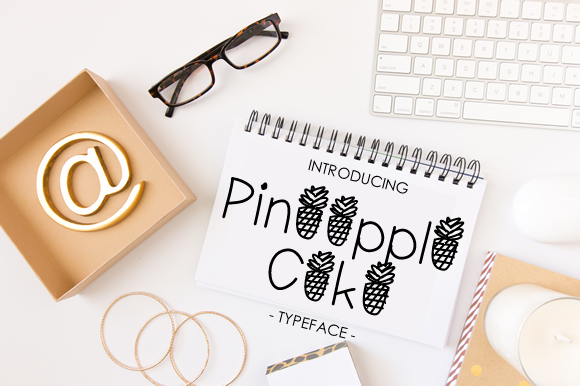
Pineapple Cake Font
Journey into a realm of unbridled creativity where your designs blossom with tropical flair, all thanks to Pineapple Cake Font, a whimsical and decorative font family that's bursting with playful charm. Crafted by the talented yh.seaofknowledge, this font collection is an ode to the sweet and juicy pineapple, capturing its essence in every curve and stroke.
Whether you're crafting personalized invitations, adding a touch of whimsy to your social media posts, or creating unique logos that exude a playful vibe, Pineapple Cake Font is your perfect companion. Its surprise pineapple characters add an unexpected twist to your designs, transforming ordinary words into delightful typographic treats.
Imagine the smiles that will light up your loved ones' faces when they receive invitations adorned with Pineapple Cake Font. Its cheerful and vibrant style is sure to make any occasion extra special. Let your imagination run wild as you explore endless possibilities, from eye-catching posters and flyers to personalized greeting cards that overflow with joy.
In the realm of social media, Pineapple Cake Font is a game-changer. Its quirky and captivating nature is guaranteed to make your posts stand out from the crowd. Engage your audience with visually stunning content that sparks conversations and leaves a lasting impression. Your followers will be mesmerized by the unique charm of Pineapple Cake Font, making your social media presence truly unforgettable.
And for those seeking to create logos that radiate playfulness and creativity, Pineapple Cake Font is your secret weapon. Its ability to transform ordinary text into delightful pineapple-inspired graphics makes it the ideal choice for businesses that want to convey a sense of fun and lightheartedness. From vibrant storefronts to playful online shops, Pineapple Cake Font will add a touch of whimsy that customers will adore.
So, dive headfirst into the world of Pineapple Cake Font and unleash your creativity. Let its vibrant energy infuse your designs with joy, captivate your audience with its playful charm, and leave a lasting impression that will have them craving more. Embrace your inner pineapple enthusiast and embark on a typographic adventure like no other.